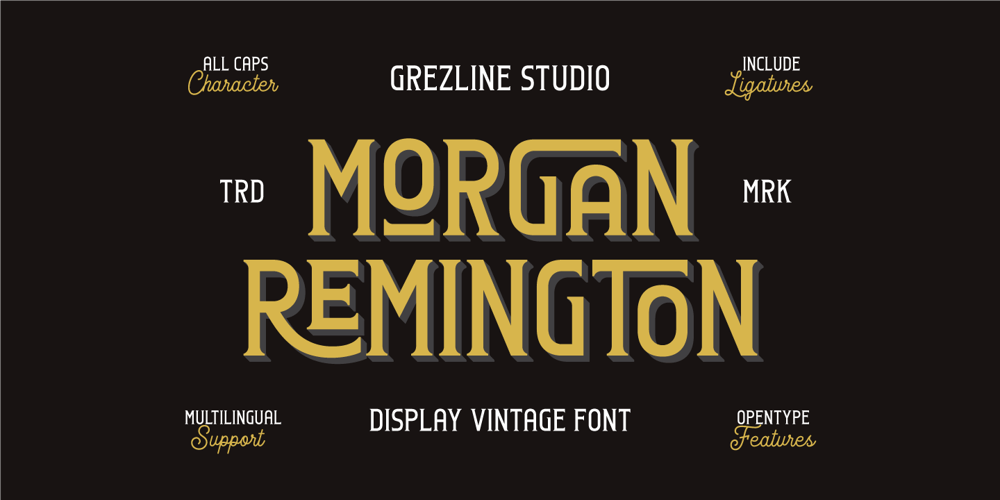
Morgan Remington Font Family was designed by Akhmad Reza Fauzi and published by Grezline Studio. Morgan Remington contains 1 styles and family package options. Morgan Remington is a font that you can use to make a vintage logo for branding, typography design, magazine or book cover, website header, product packaging, t-shirt design, label poster and many more.Feature :- Ligature and Alternate Glyph- Multilingual Language- Works on PC & Mac- Simple installations- Accessible in the Adobe Illustrator, Adobe Photoshop, Adobe InDesign, even works on Microsoft Word.Thank you for your support!!Grezline Studio – Akhmad Reza Fauzi